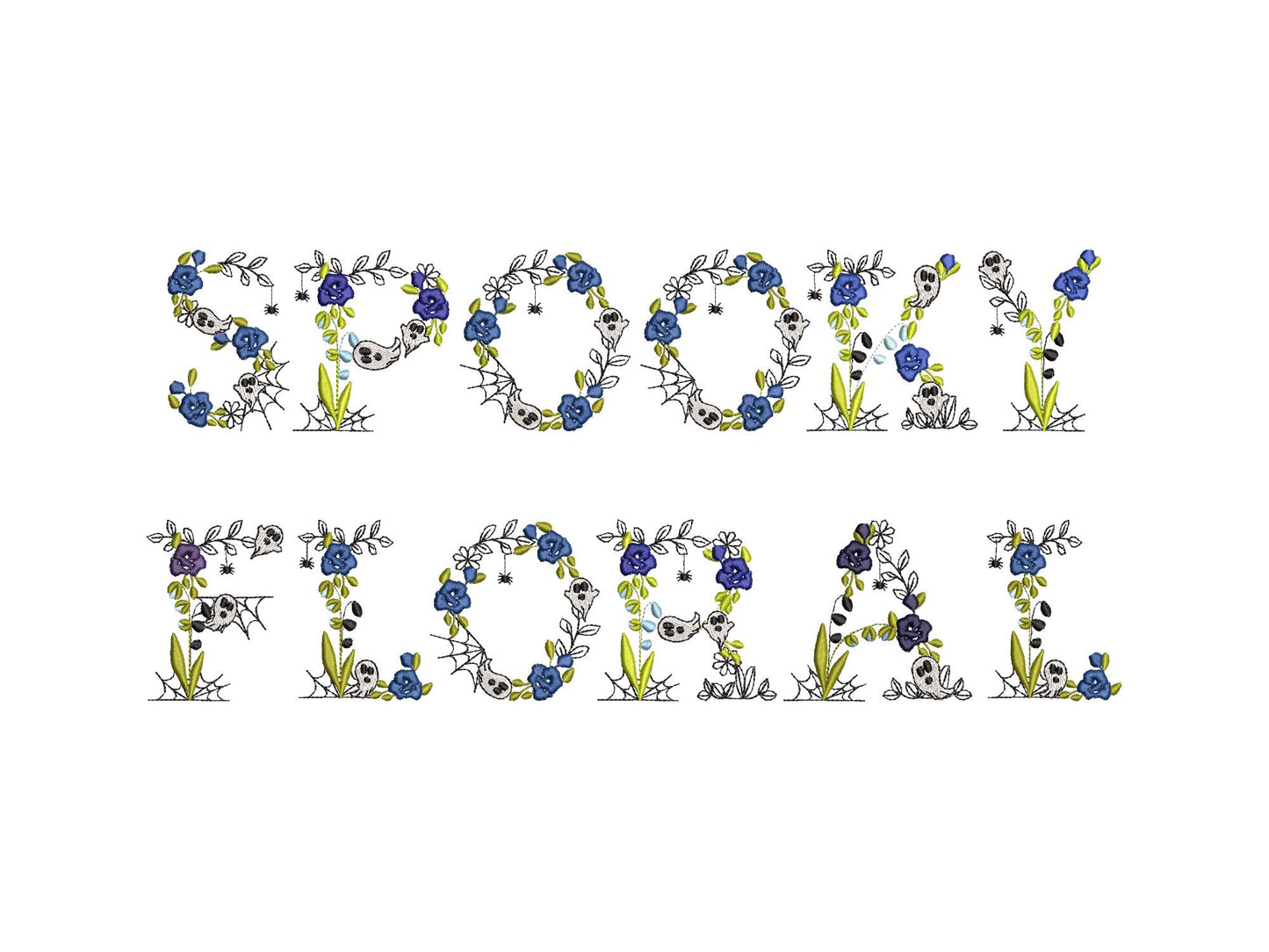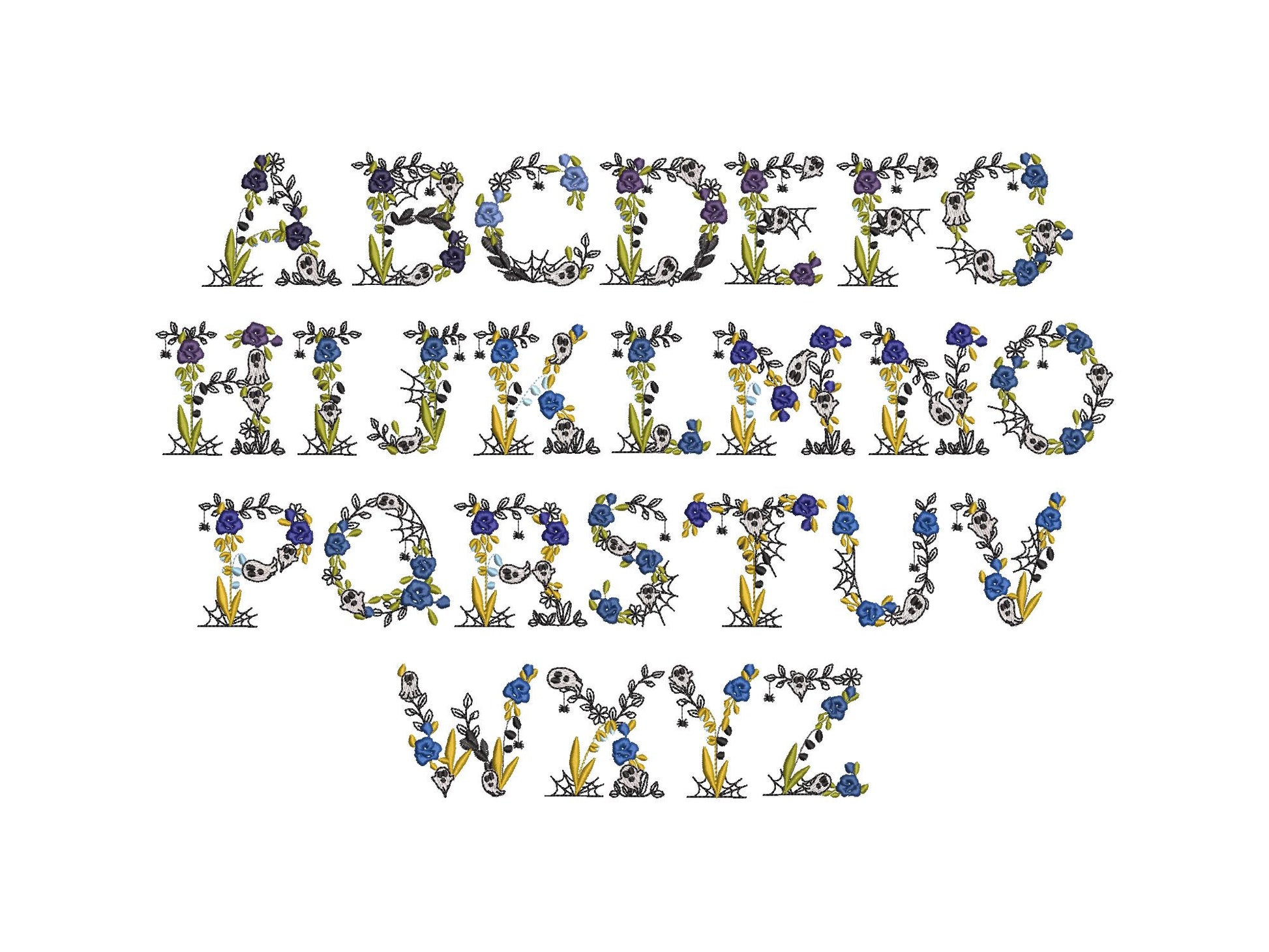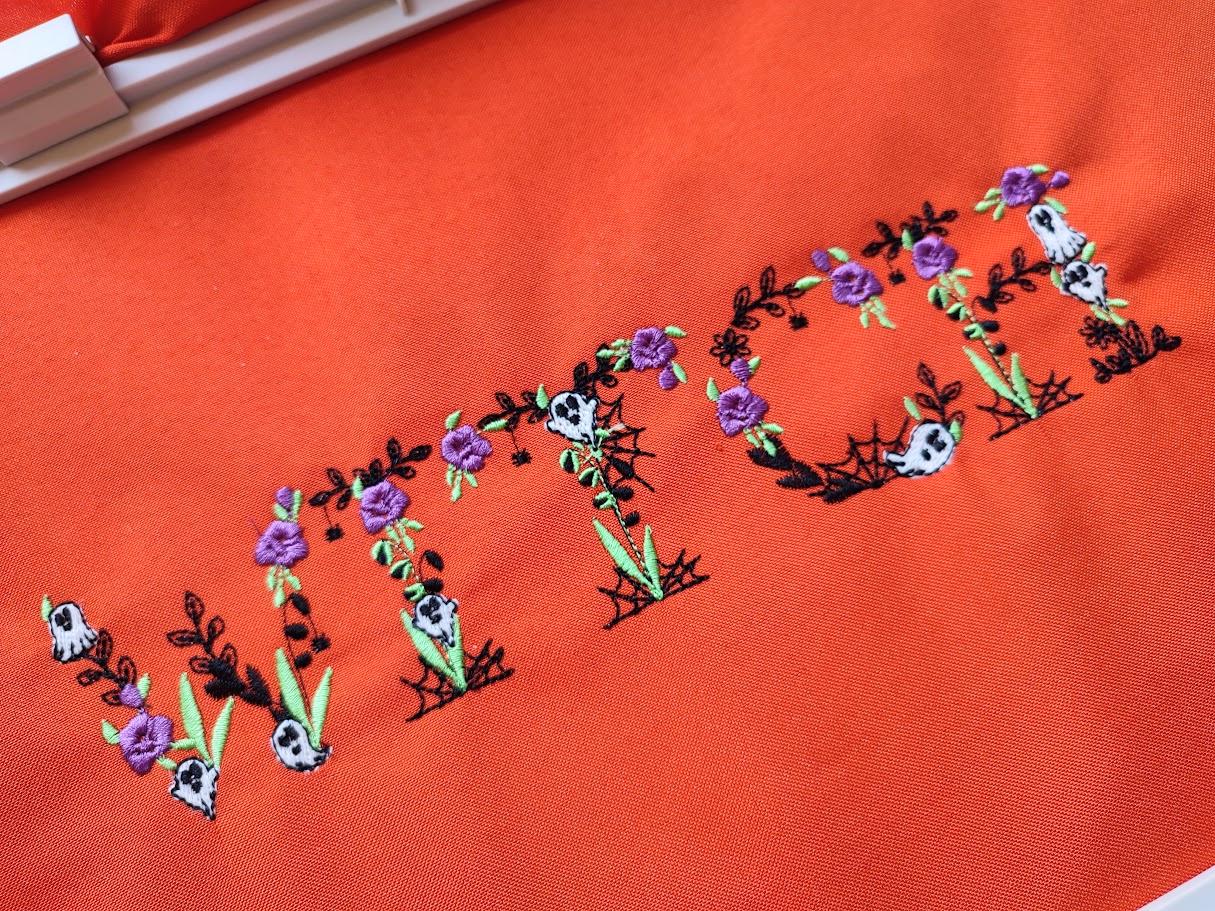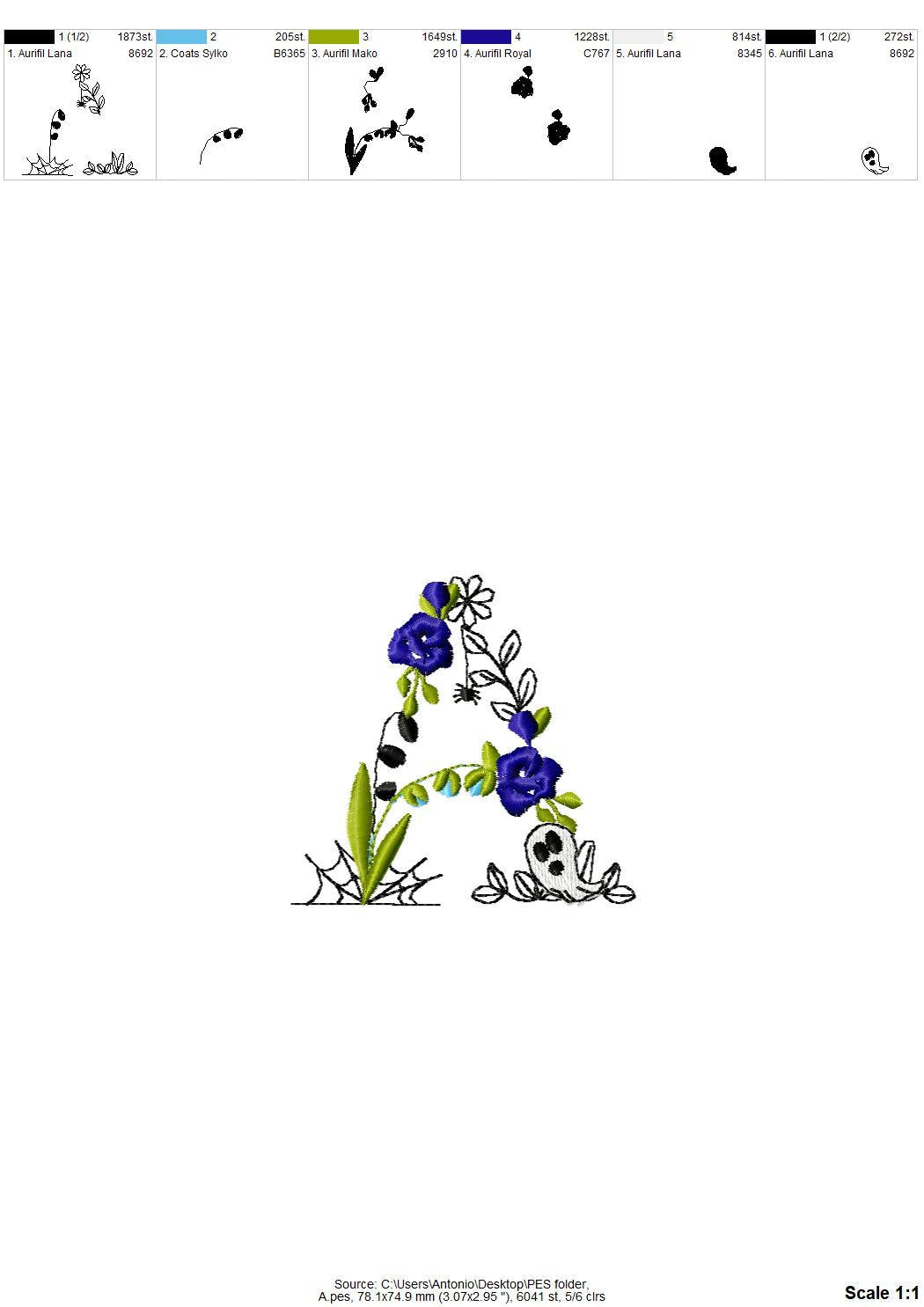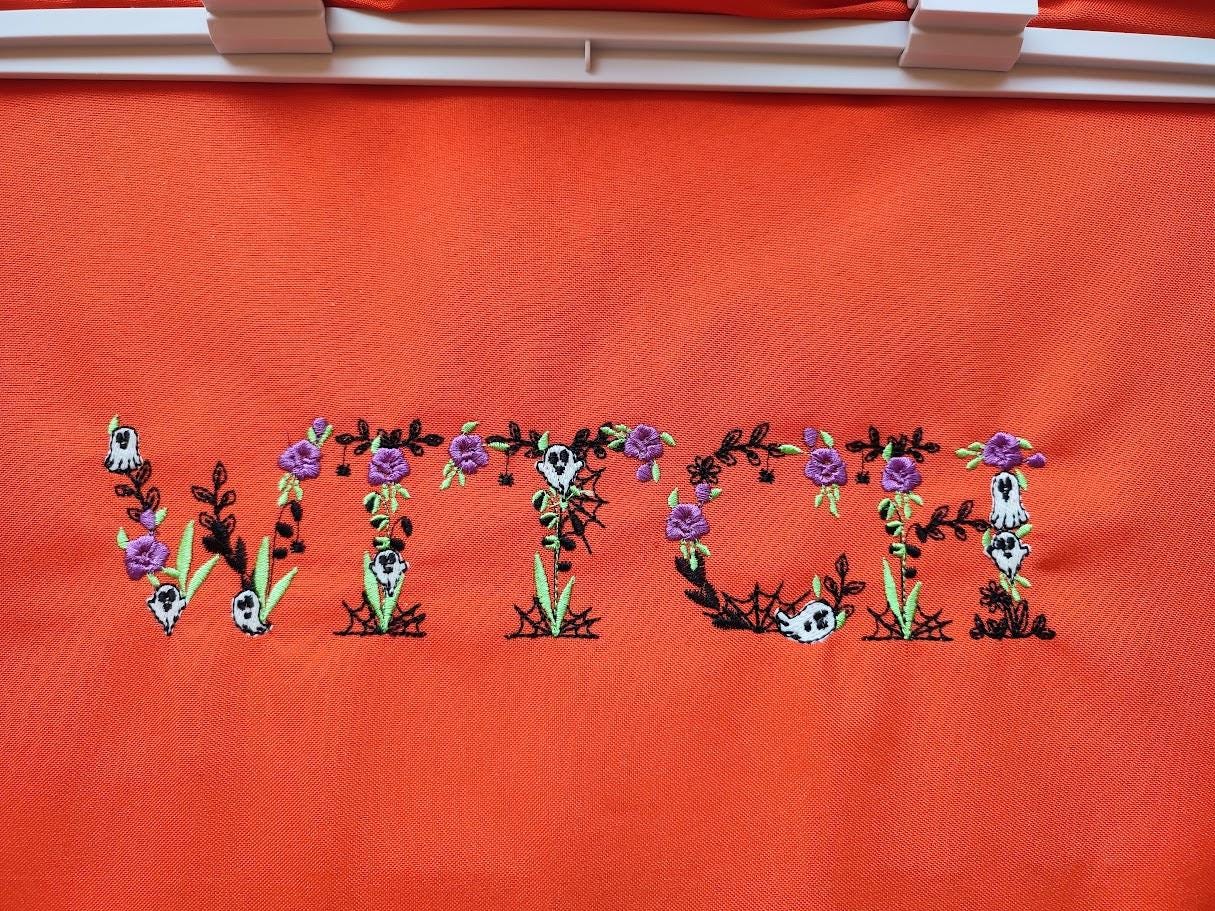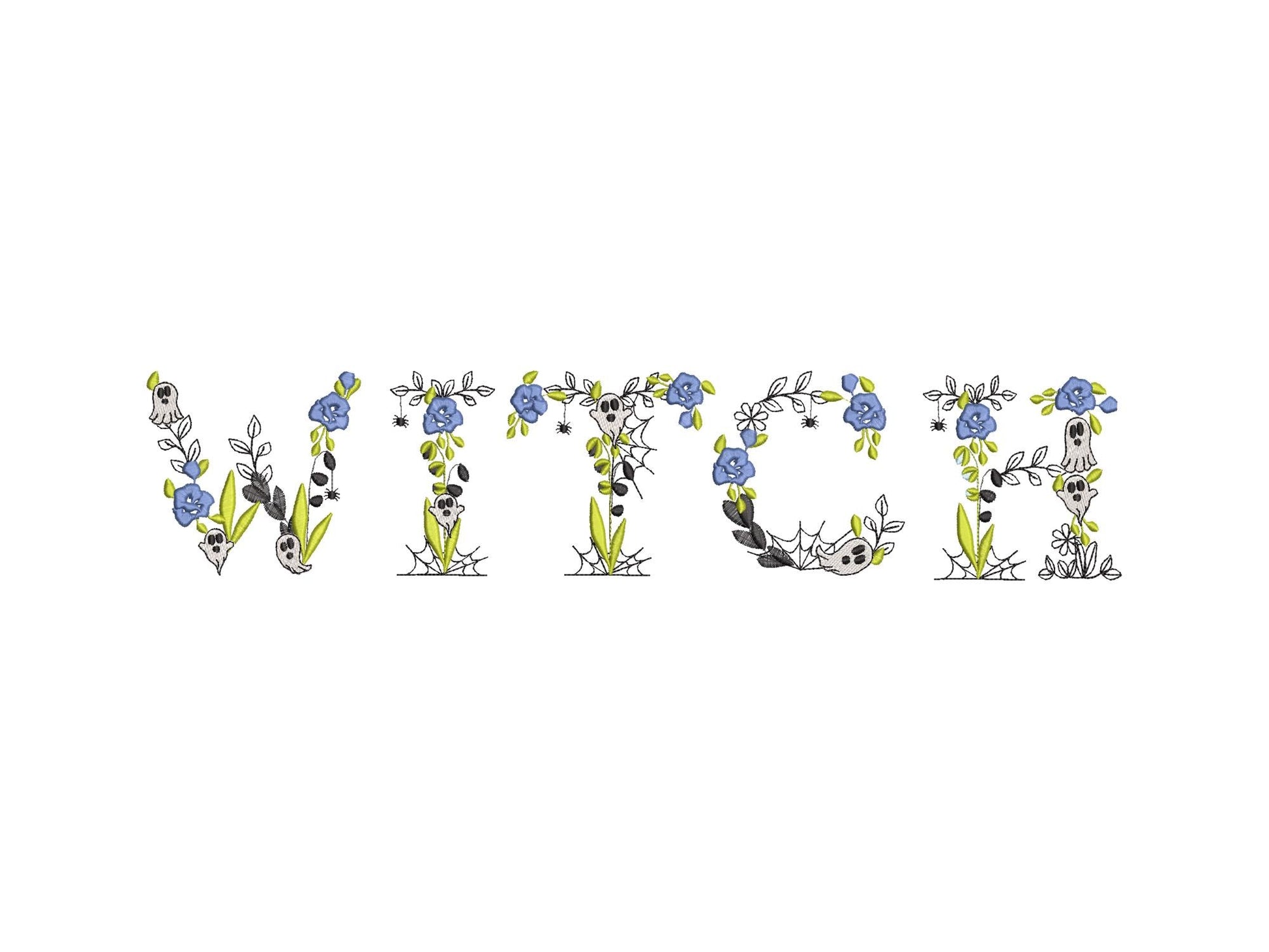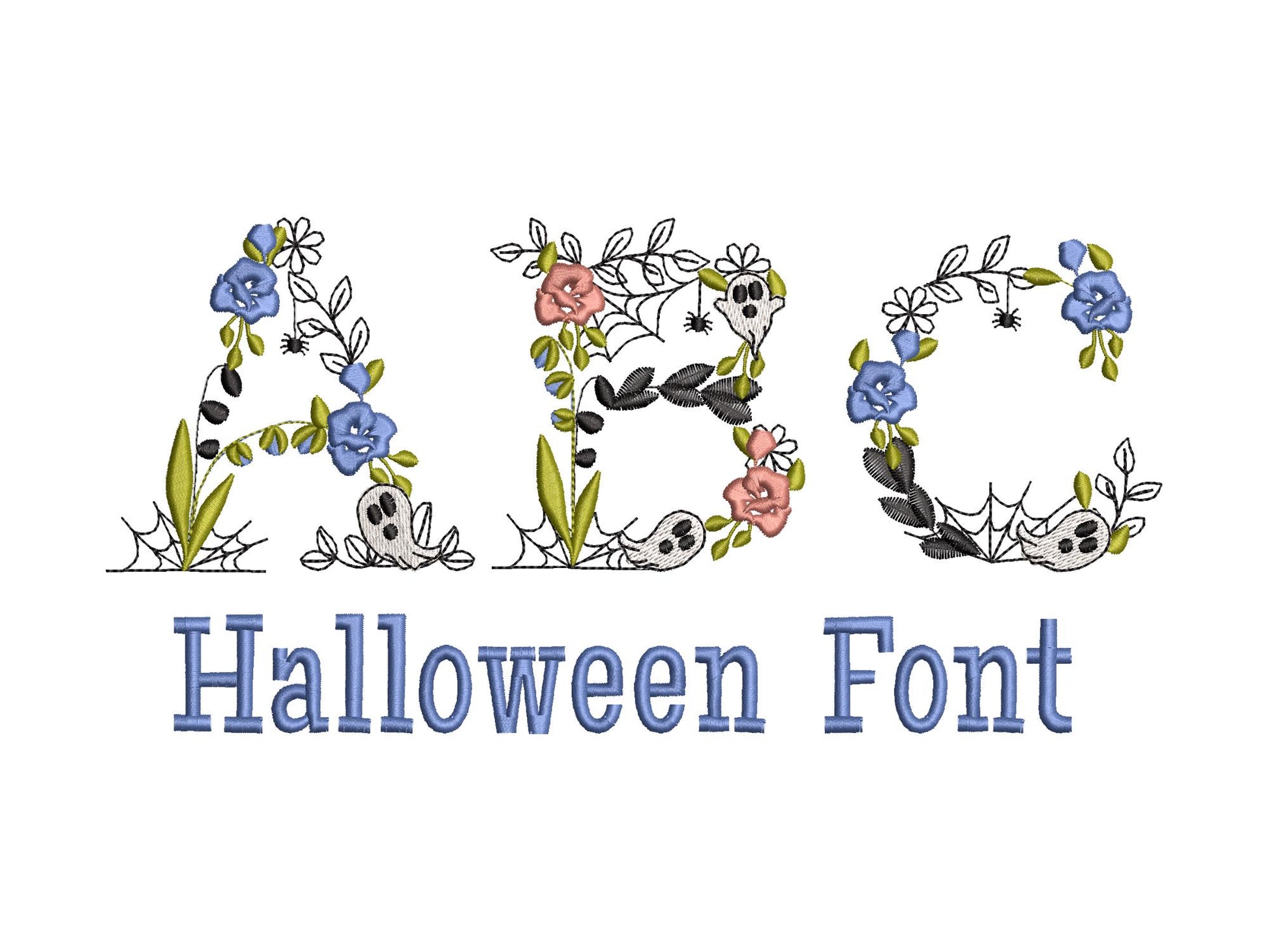
Or click to open the linkA spooky floral Halloween font with ghosts, cobwebs and roses. Fun for Halloween names, words and 'BOO' on shirts, bags and pillows.
Light stitch design, so the fabric shows through. Uppercase A to Z in five sizes: 2.2, 2.4, 3, 3.3 and 3.7 inches.